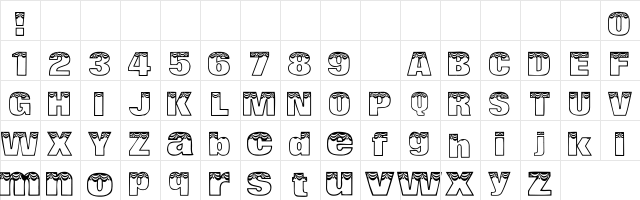
Complete 101! Drippin' With Patriotism Regular glyph index. Displaying only characters natively supported by 101! Drippin' With Patriotism Regular font.
101! Drippin' With Patriotism is a composed and adaptable typeface that performs quietly and consistently across a wide range of design contexts.